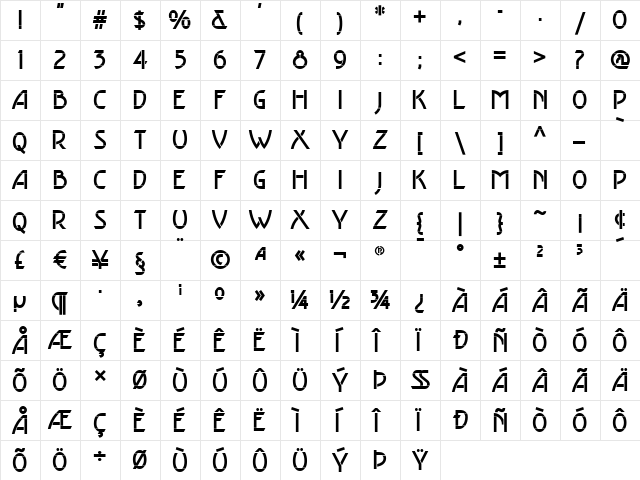
PearsonStencilNF Medium
| Foundry | Nick's Fonts |
| Designer | Nick Curtis |
Design Context for PearsonStencilNF Typeface
PearsonStencilNF has the rough pragmatism of spray-painted stencil signage, adding a raw, street-level authenticity to designs.
Ideal for industrial branding, streetwear, military-adjacent aesthetics, and urban signage projects.
Pro Tip: Pair PearsonStencilNF with raw, utilitarian design elements — exposed concrete textures, flat colour, and minimal ornamentation suit it well.